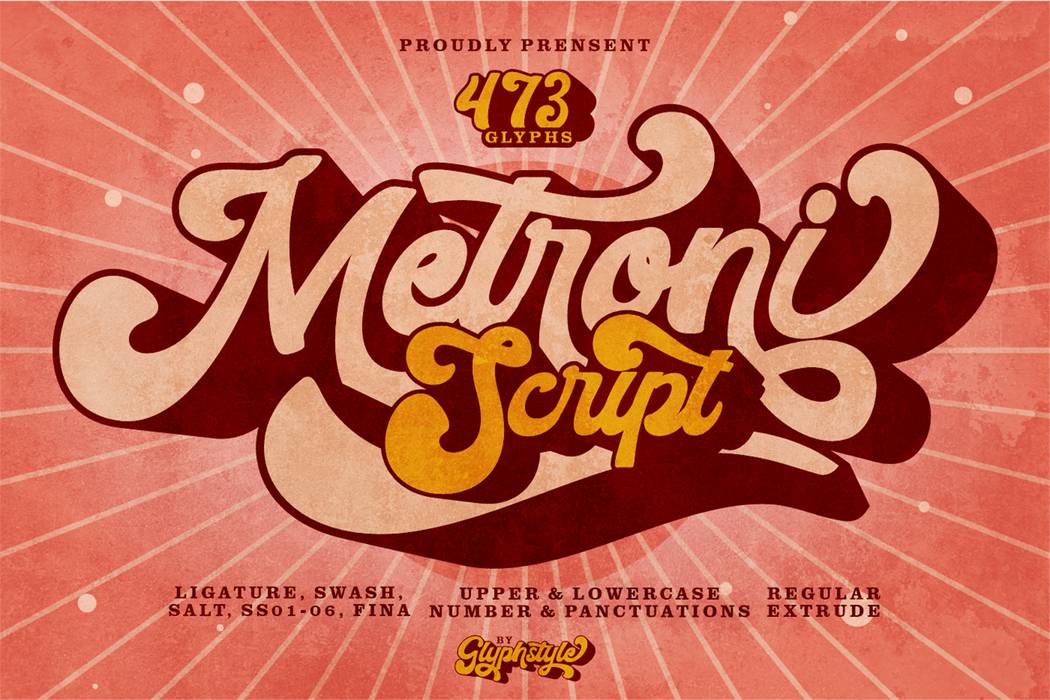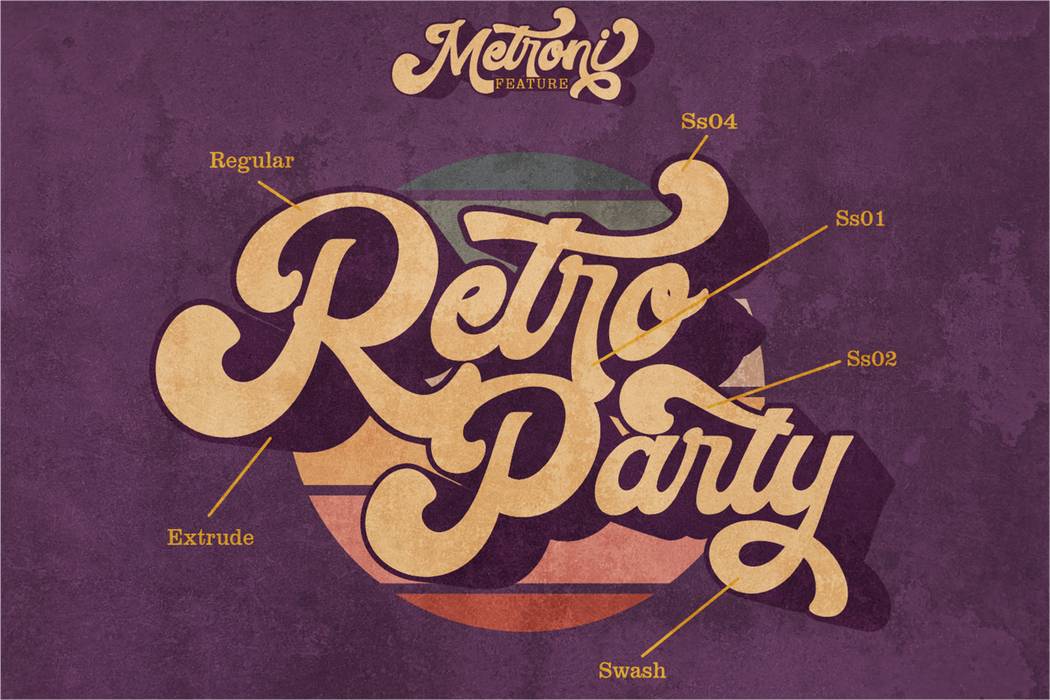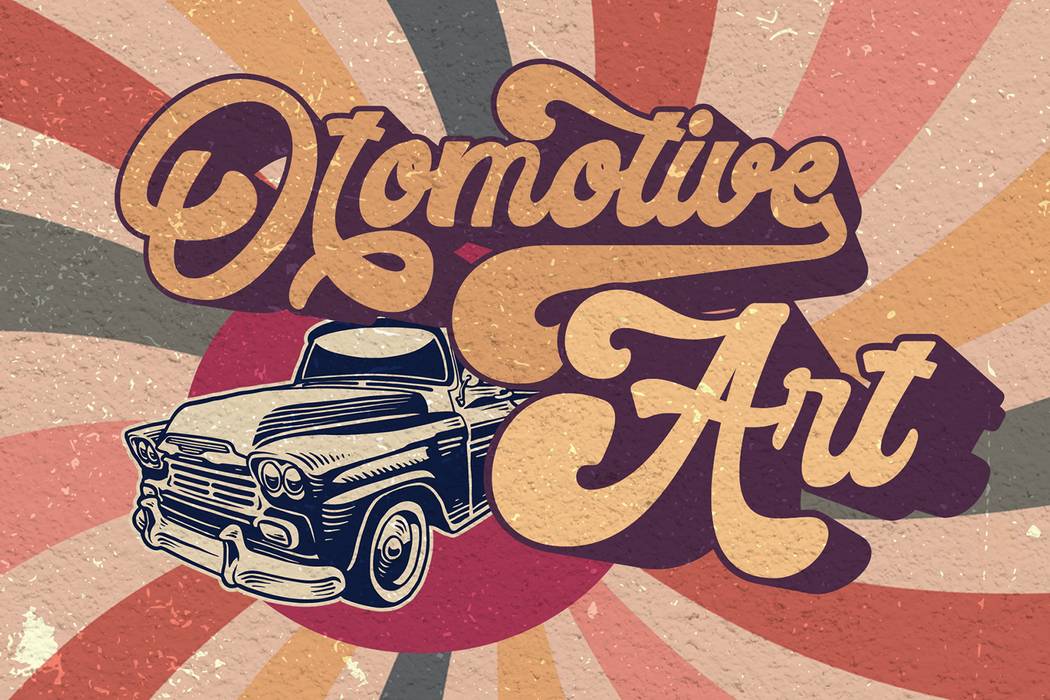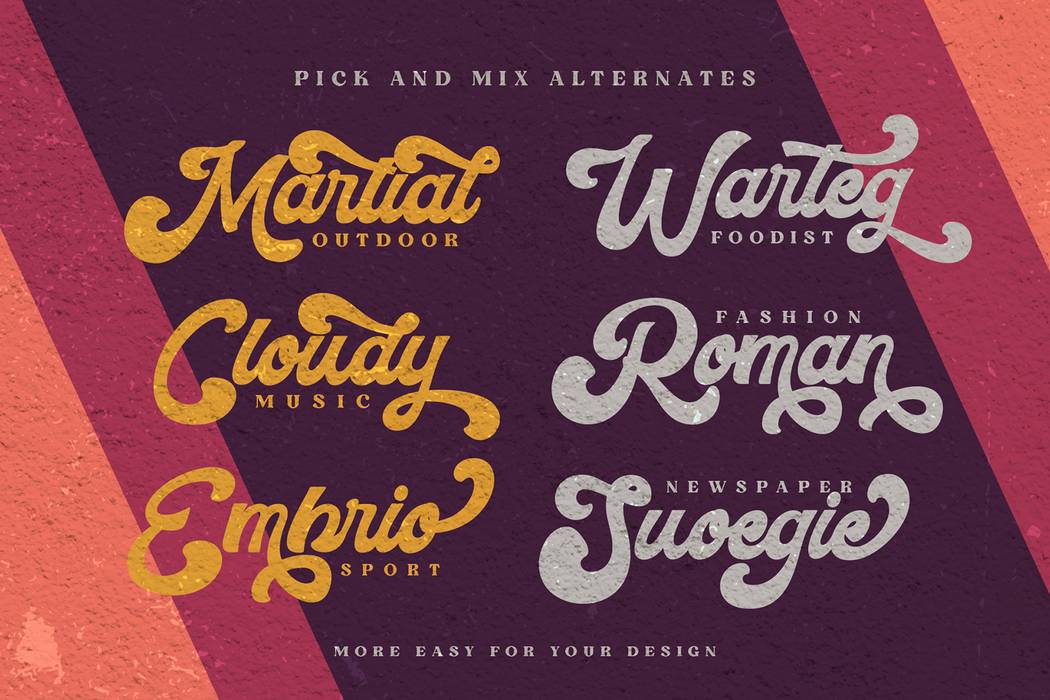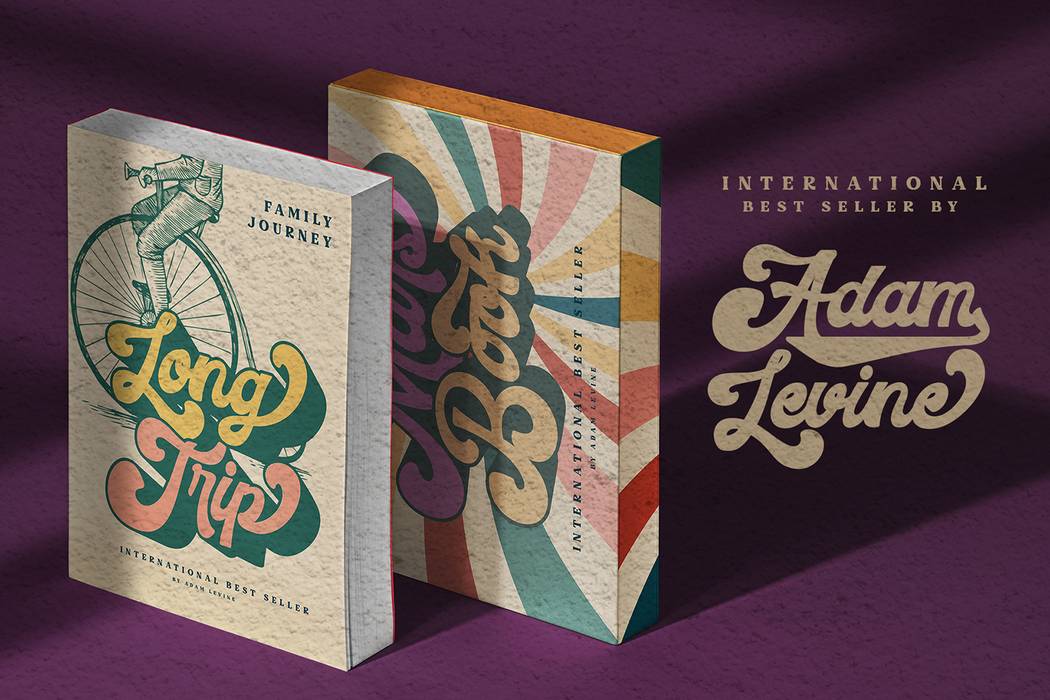
Metroni is a bold, playful script font with thick, rounded strokes and a lively, vintage-inspired personality. Its smooth curves and high contrast make it perfect for eye-catching headlines, logos, and branding projects that want to convey warmth and charm. This font works especially well in creative, retro, or casual design contexts where a friendly and dynamic touch is desired.
Metroni Font
About Metroni Font
| Font family | Metroni Font |
| Release date | 2023-02-07 |
| Designer | Glyphstyle |